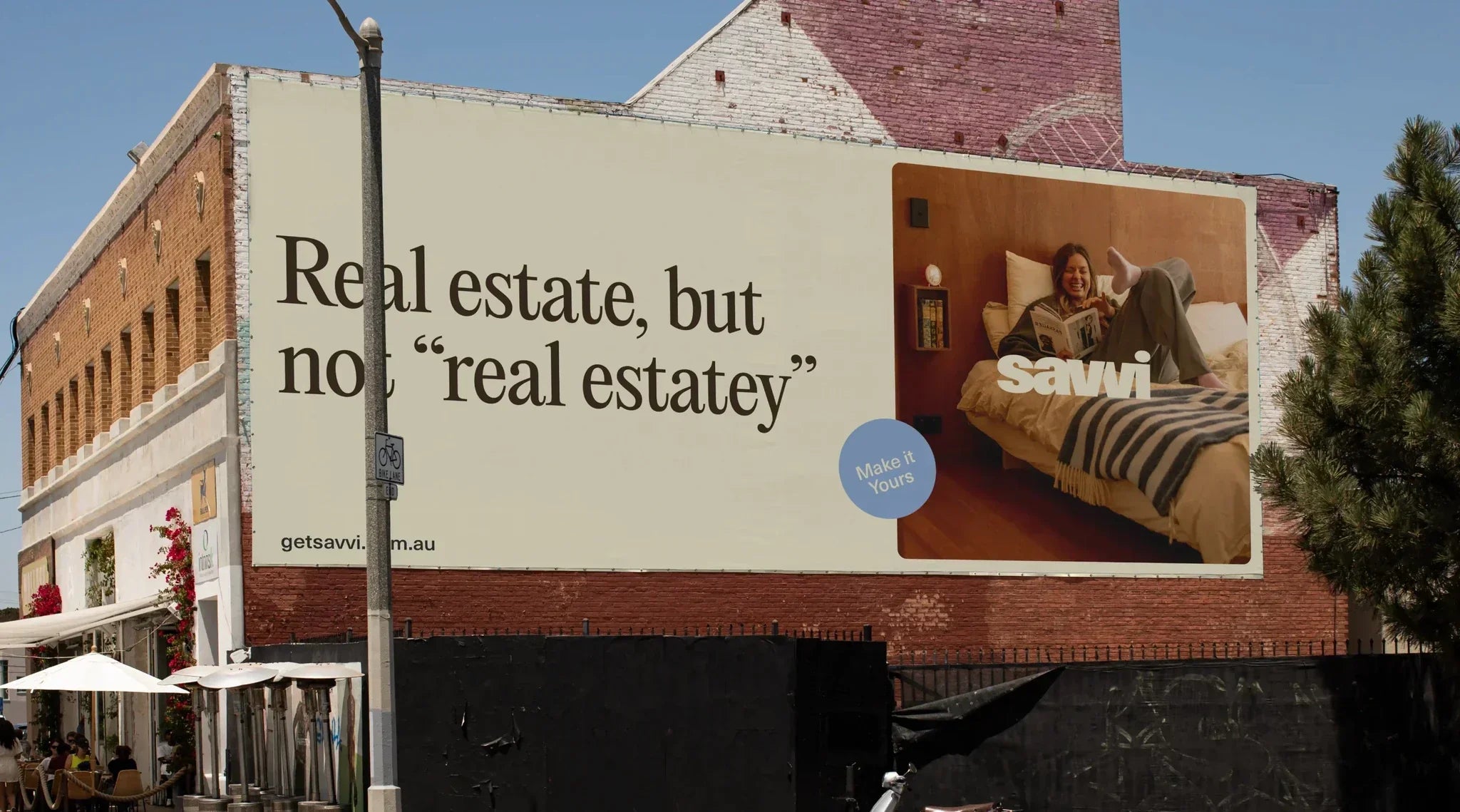
Luke Saville’s surname gave Something Great a name, and the name gave the brand an entire personality. Savvi started as a tongue-in-cheek nod to the founder’s family name, but quickly became something more useful.
“It carries this nice double meaning,” explains James Hill, Founder & Creative Director at the Melbourne-based creative studio. “You're working with a savvy agency, and by extension, you’re a savvy buyer or seller. It’s playful without being gimmicky, and it subtly reinforces that you’re making a smart decision when you go through them.”
That playfulness became the differentiator because Savvi operates in a space not known for it. The real estate agency deals exclusively in apartments and townhouses, properties typically purchased by first-time buyers in the 25-to-35 age range. Most agencies chase bigger family homes where commissions are higher, leaving this younger demographic as an afterthought. Saville saw that gap and wanted a brand that spoke to these buyers directly, on their terms and in their language. “We didn’t want to challenge the industry just to be different, but to actually relate to our target audience in a better way,” says Luke Saville, CEO at Savvi Real Estate. “We knew that we didn’t operate like a traditional agency, and we wanted our brand to reflect that.”
Something Great took this brief and steered it away from everything the property category defaults to. Bold serif logos, navy or black palettes, hero shots of empty rooms and agent portraits with crossed arms all went out the window. In their place, the studio built an identity that borrows from editorial publishing and lifestyle branding, grounding the agency in warmth and personality.
The wordmark is set in ABC Gravity by Dinamo, kept entirely lowercase. “We wanted something that felt strong and confident but still approachable, which is why we kept it all lowercase,” Hill shares. “It has this real weight and presence to it without feeling aggressive.” The logotype is designed to be used at an oversized scale across layouts, often cropped by the edge of the frame, so it functions as a graphic element as much as an identifier. That boldness gives compositions an immediate sense of confidence.
Two typefaces support the system around it. PP Editorial New handles headings and pull quotes, bringing a refined feel that ties the brand to fashion and publishing rather than property. Its high-contrast letterforms do the heavy lifting in layouts, establishing a tone that feels considered and editorial. Neue Haas Unica Pro, taking care of supporting copy and UI elements, is clean and restrained enough to let the Editorial New do its thing. “The two typefaces together create this nice tension between personality and precision,” Hill notes. “One leads, the other supports.”
The colour palette – with Savvi Brown, Savvi Sky, Savvi Butter and Savvi Orange – form a deliberately warm system, a long way from the navy and monochrome palettes that dominate real estate branding. These colours work alongside bold colour blocking that, combined with the oversized typography and photography, gives the identity a graphic confidence that feels more magazine spread than property listing.
Photography was central to shifting perception. Something Great shot everything in natural light and used more natural casting. “From the model choices through to the interior styling, we wanted everything to feel less staged,” Hill explains. “The goal was to make property feel less like a transaction and more like real life.” The art direction makes a deliberate case for imperfection as a brand value, treating the messiness of actual homes as more compelling than anything a stylist could arrange.
Something Great also developed a set of callout stickers carrying lines like ‘Sorted,’ ‘Legends’ and ‘Not your average agent,’ designed to inject personality and humour across social media and print materials. These moments give the brand a conversational register that extends beyond the visuals, reinforcing the tone of voice at every touchpoint. The overall language is direct, warm and conversational, built to sound like the way a friend would talk about buying a home. “If you read most real estate copy, it’s this incredibly verbose, theatrical language that nobody actually talks like,” Hill says. “We wanted Savvi to speak to people the way a mate would. More direct, less performance, and ideally make them crack a smile along the way.”
Saville admits the studio pushed beyond anything he had imagined. “We had no idea what we wanted. We just knew the vibe of what we wanted,” he says. “The Something Great team pushed our thinking in the best way possible. We could never have envisioned the brand we ended up with, but it suits us perfectly.” Since launching, the response from Savvi’s target demographic has been strong. “We have had a huge amount of feedback saying how refreshing it is,” Saville shares. “They love the copy and the branding, and the auction boards stand out amongst all the other agencies.” He is candid about the brand’s intentional boundaries, too. “We won’t relate to every vendor out there, but we also never wanted to. We were very clear on who our target audience is and the brand is a hit within that demographic.”